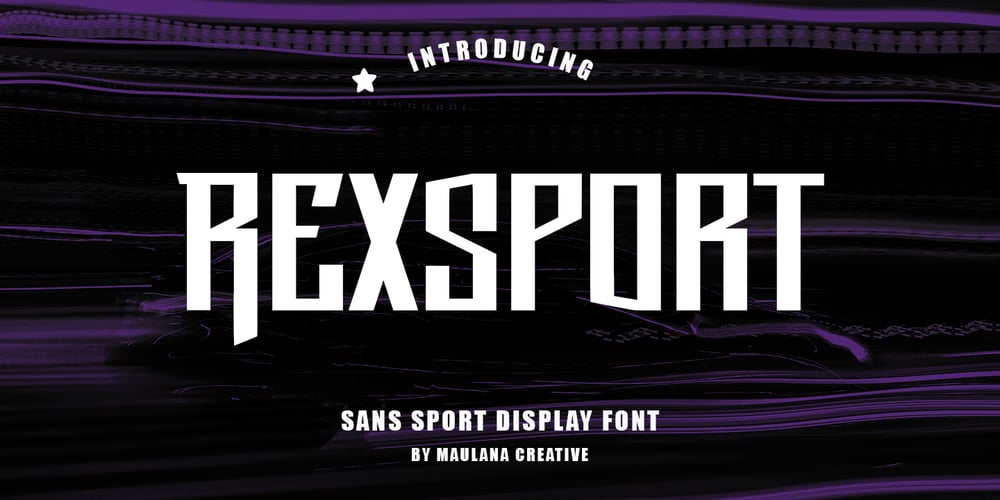
MC Rexsport Font Family was designed by Gilang Maulana and published by Maulana Creative. MC Rexsport contains 1 styles and family package options. Rexsport sport display font. Heavy stroke, fun character with alternates. To give you an extra creative work. Rexsport sport display font support multilingual language. This font is good for logo design, Social media, Movie Titles, Books Titles, a short text even a long text letter and good for your secondary text font with script or serif. Make a stunning work with Rexsport sport display font. Cheers,Maulana Creative